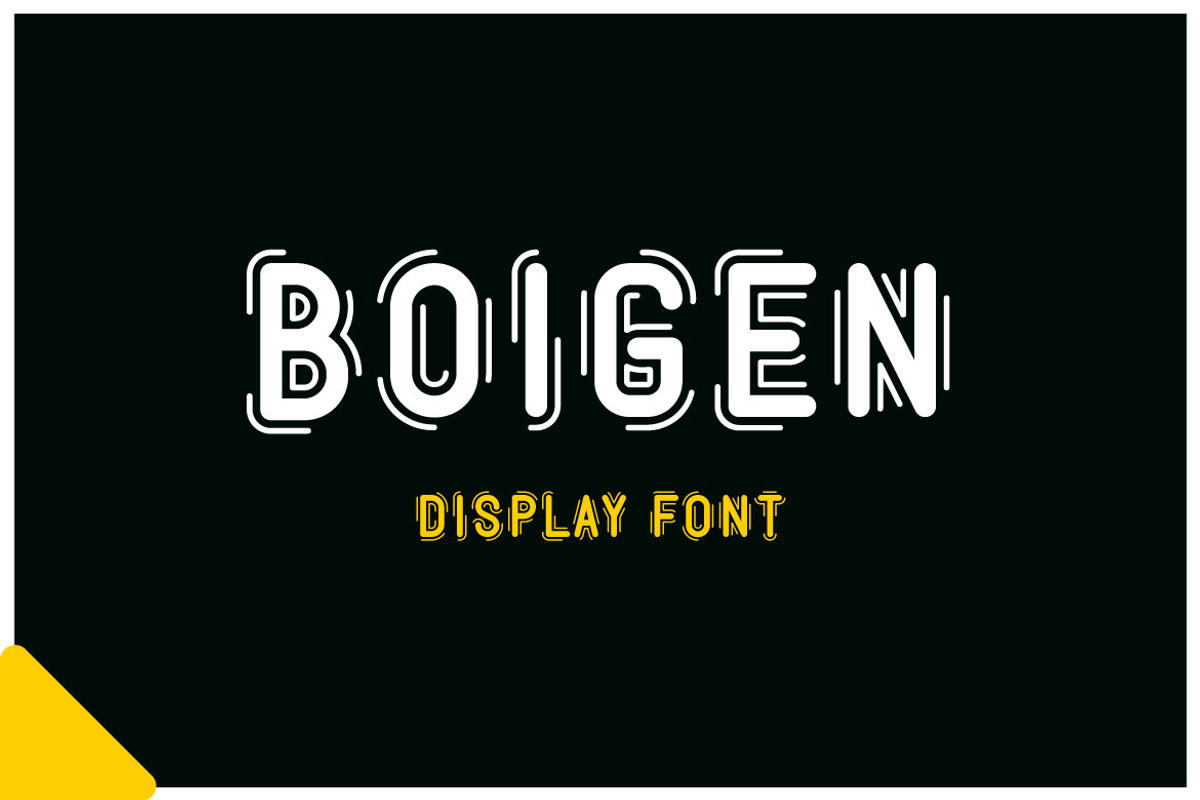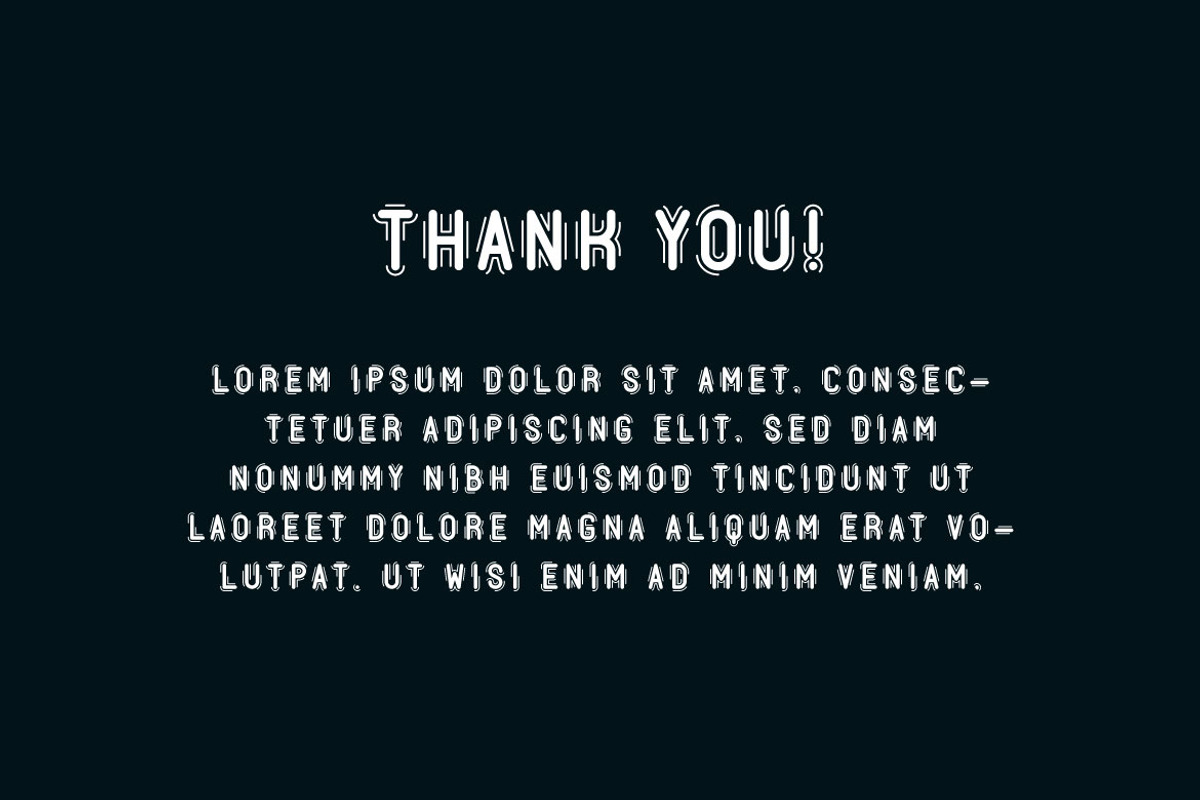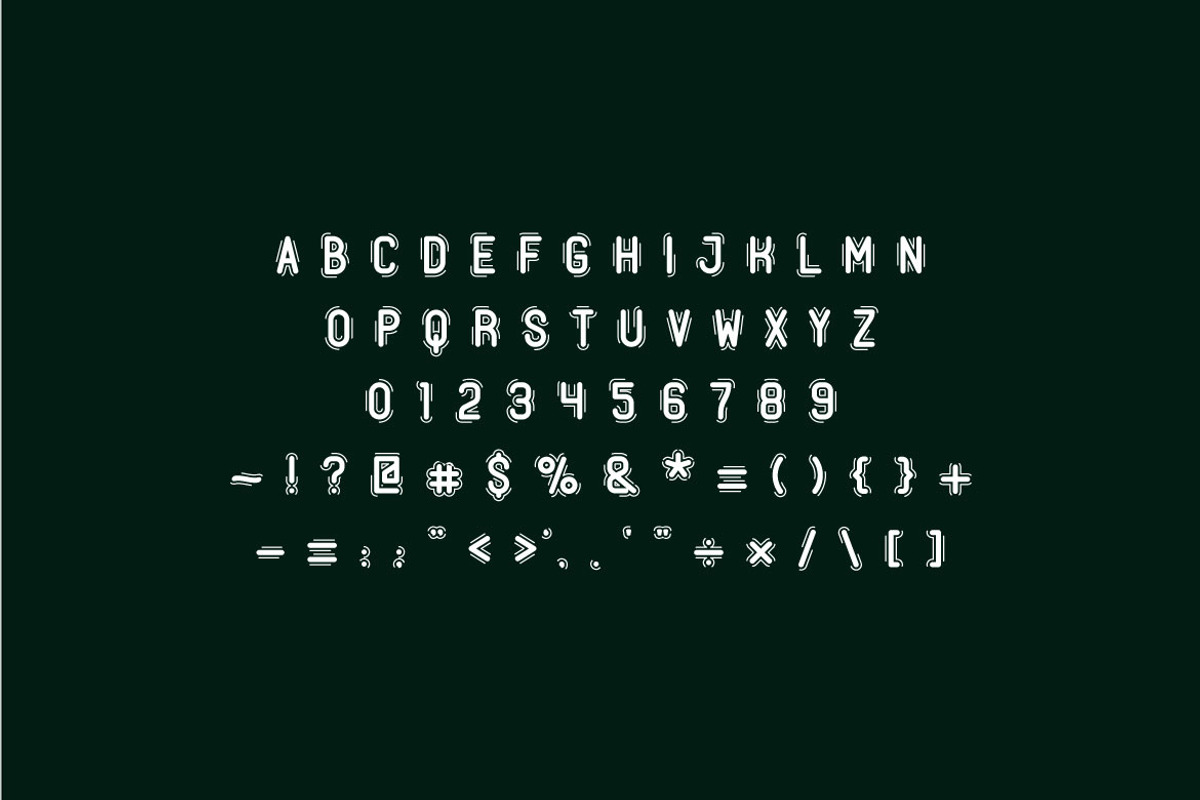
Boigen - Modern Display Font
If you are looking for a unique display font, meet Boigen Boigen is perfect for any works, such as your poster, card, book title, headline of news, banner, flyer, stationery and many more. It also can be used in Any scale work.